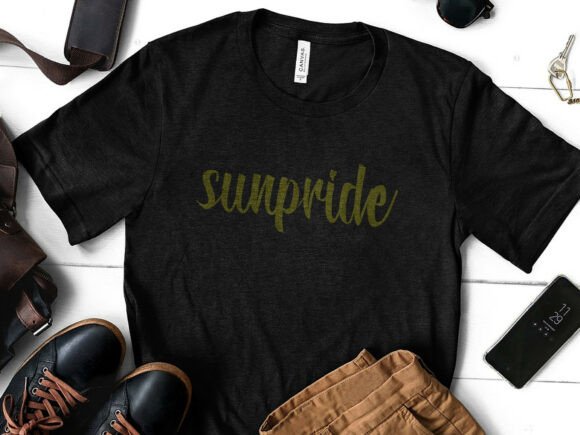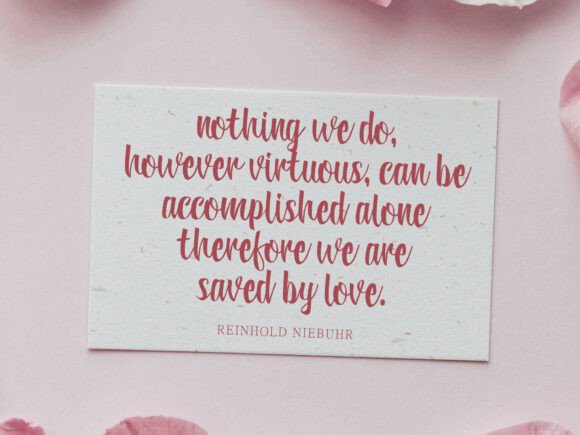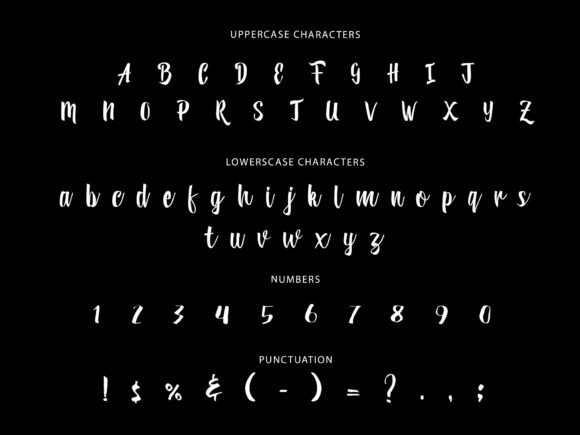
Barkana Font: A Timeless Classic with a Retro Twist
In the world of typography, fonts play a crucial role in conveying the tone and personality of a brand or design. Among the numerous fonts available, Barkana stands out as a stylish script font that exudes a timeless classic touch. Inspired by retro signage and vintage logo design, Barkana brings a strong yet friendly personality to your projects, making it perfect for designers and crafters looking to add a touch of charm and confidence to their work.
The Inspiration Behind Barkana
Barkana’s design is rooted in the nostalgia of retro signage and vintage logo design. The font’s creator drew inspiration from the classic typography of the past, reimagining it with a modern twist. The result is a font that feels both nostalgic and fresh, perfect for designers looking to create unique and eye-catching designs.
Key Features of Barkana Font
Barkana is a versatile font that offers a range of features that make it suitable for various design projects. Some of its key features include:
- Timeless Classic Touch: Barkana’s design is inspired by the classics, giving it a timeless quality that won’t go out of style.
- Strong yet Friendly Personality: The font’s unique blend of strength and friendliness makes it perfect for designs that require a confident and approachable tone.
- Retro Signage Inspiration: Barkana’s retro signage inspiration gives it a distinctive look that’s perfect for designs that require a touch of nostalgia.
- Vintage Logo Design Influence: The font’s vintage logo design influence adds a touch of sophistication and elegance to any design.
Use Cases for Barkana Font
Barkana is a versatile font that can be used in a variety of design projects, including:
- Branding: Barkana’s strong yet friendly personality makes it perfect for branding projects that require a confident and approachable tone.
- Posters: The font’s retro signage inspiration and vintage logo design influence make it perfect for creating eye-catching posters that grab attention.
- Packaging: Barkana’s charming and confident vibe makes it perfect for packaging designs that require a touch of personality.
- Headlines: The font’s bold and elegant design makes it perfect for headlines that require a strong and confident tone.
Why Choose Barkana Font?
With so many fonts available, why choose Barkana? Here are a few reasons why Barkana stands out:
- Unique Personality: Barkana’s unique blend of strength and friendliness gives it a personality that’s hard to find in other fonts.
- Versatility: The font’s versatility makes it suitable for a wide range of design projects, from branding to packaging.
- Timeless Design: Barkana’s timeless classic touch ensures that it won’t go out of style, making it a great investment for designers and crafters.
In conclusion, Barkana is a stylish script font that brings a timeless classic touch to any design project. With its strong yet friendly personality, retro signage inspiration, and vintage logo design influence, Barkana is perfect for designers and crafters looking to add a touch of charm and confidence to their work. Whether you’re working on a branding project, creating a poster, or designing packaging, Barkana is a great choice.
Tips for Using Barkana Font
Here are a few tips for getting the most out of Barkana font:
- Experiment with Different Sizes: Barkana looks great in a variety of sizes, from small headlines to large display text.
- Play with Color: The font’s bold design makes it perfect for use with bright and bold colors.
- Mix and Match: Try pairing Barkana with other fonts to create a unique and eye-catching design.
By following these tips and using Barkana font in your design projects, you’ll be able to create unique and eye-catching designs that showcase your creativity and style.